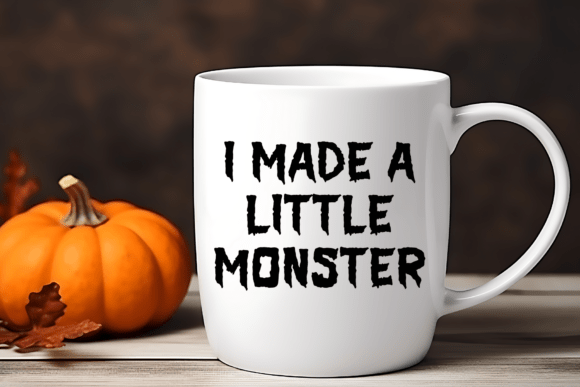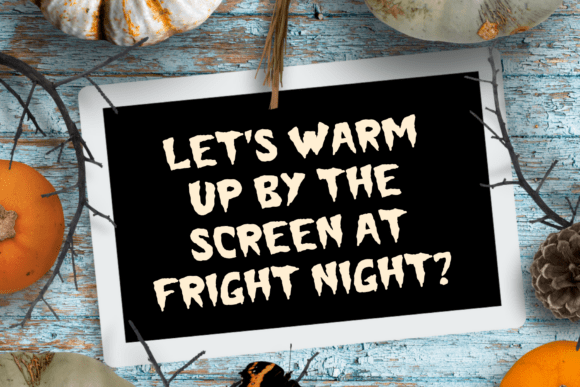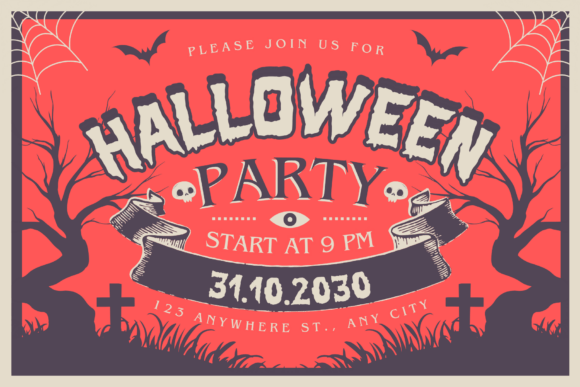
Introduction to Jagged Terror Font
Jagged Terror is a Halloween decorative font.
👤 Author Brown Cupple Fonts
It embodies playfulness and authenticity and is the perfect choice for all your favorite projects, such as blog posts, logos, branding, ads, invitations, greeting cards, planners, photo albums, decorations, and more Add it to any of your designs, and enjoy the results.
Key Features of Jagged Terror Font
Why Choose Jagged Terror Font?
Jagged Terror Font offers exceptional quality and versatility, making it a valuable addition to your design toolkit. Whether you’re creating for personal projects or commercial use, Jagged Terror Font delivers professional results.